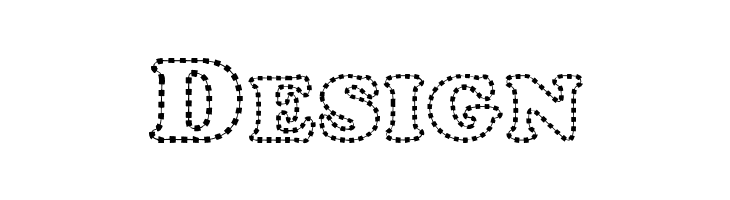
Trajia Shadow Italic Font
- Font: Trajia Shadow Italic
- Weight: Shadow Italic
A playful, dotted outline font with bold uppercase letters and rectangular special characters.
( Fonts by Levi Halmos )